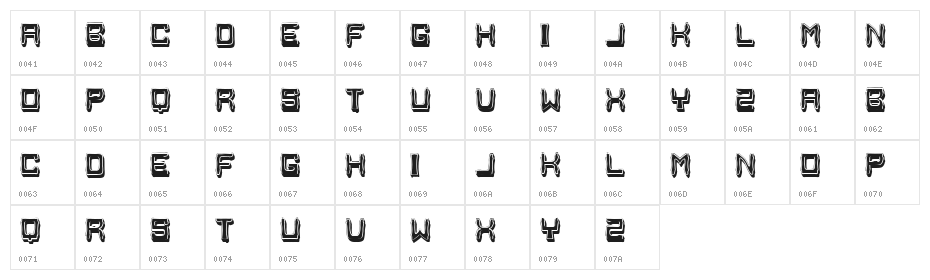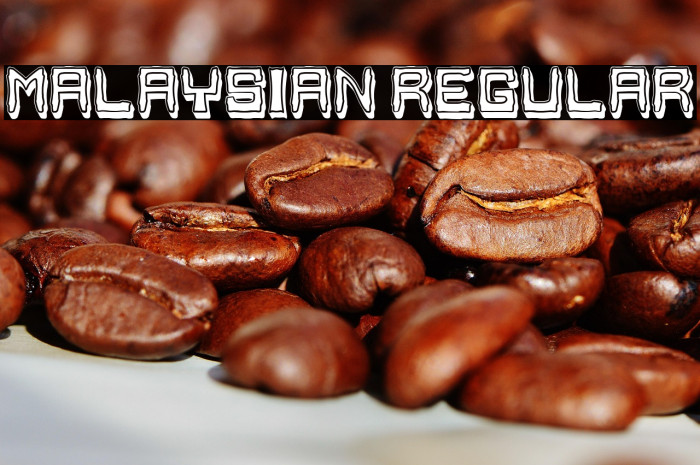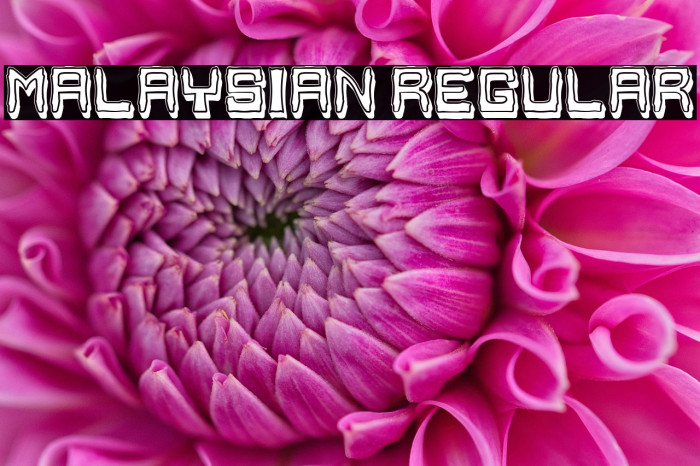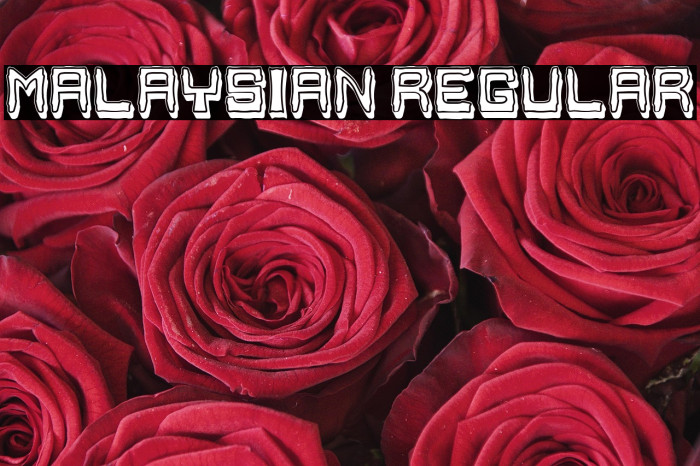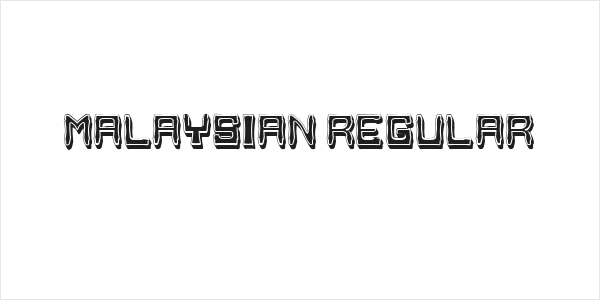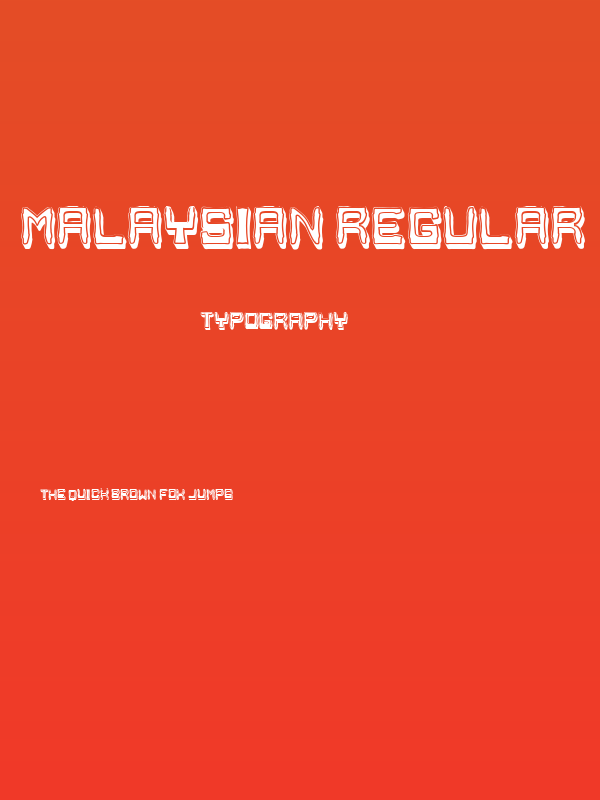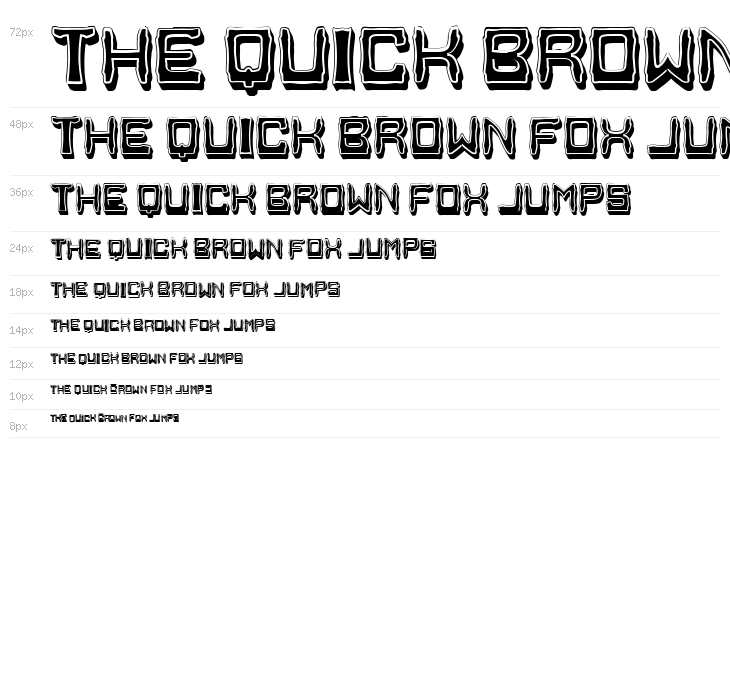
Malaysian Regular Font
Malaysian Regular Description
This font features a bold, three-dimensional appearance with a distinct outline that gives it a strong, impactful presence. The letters are uppercase and have a geometric, block-like structure, which is accentuated by the shadow effect that adds depth and dimension. The design is consistent across all characters, maintaining a uniform width and height, which contributes to its cohesive look. The font's style is reminiscent of retro or vintage aesthetics, making it suitable for projects that require a bold and eye-catching typeface. The spacing between characters is tight, enhancing the compact and solid feel of the text.
Overall StyleVintage
Proposed ProjectsIdeal for posters, logos, headlines, and any design needing a strong, vintage-inspired typeface.